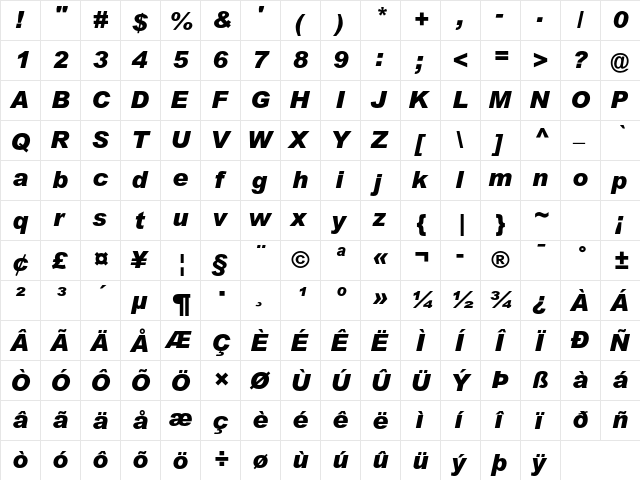
Arial MT Std Black Italic
| Foundry | Agfa Monotype Corporation |
Design Context for Arial MT Std Typeface
Arial MT Std takes a measured approach to typography — its balanced proportions and neutral character make it a reliable workhorse for both digital and print work. Its italic angle brings a sense of urgency and motion to the letterforms.
Pro Tip: Use Arial MT Std for emphasis, pull quotes, and subheadings where its slanted energy can add rhythm to the layout.